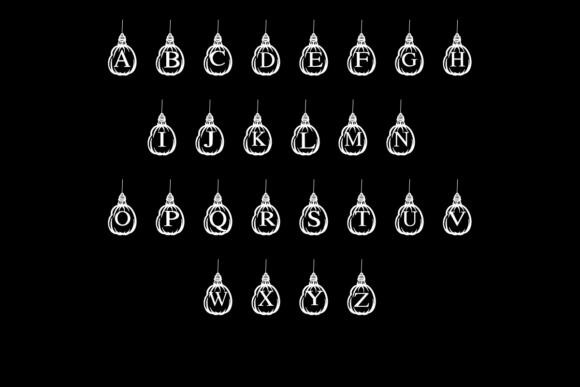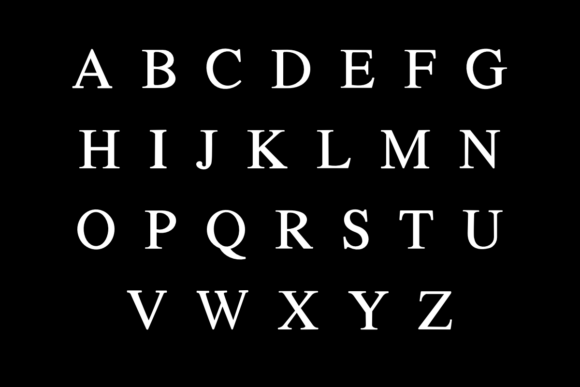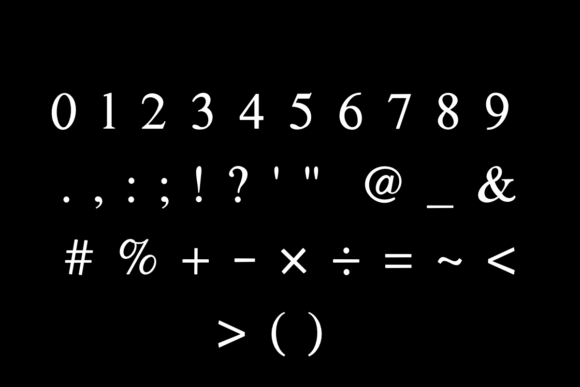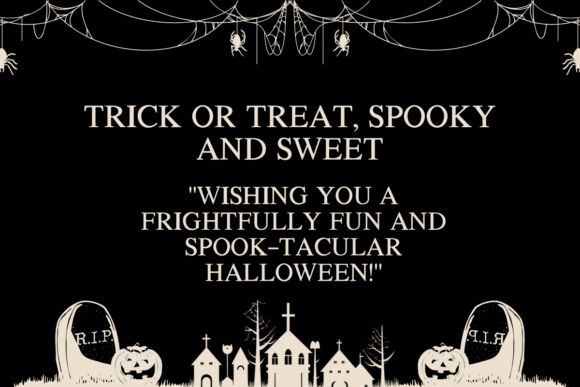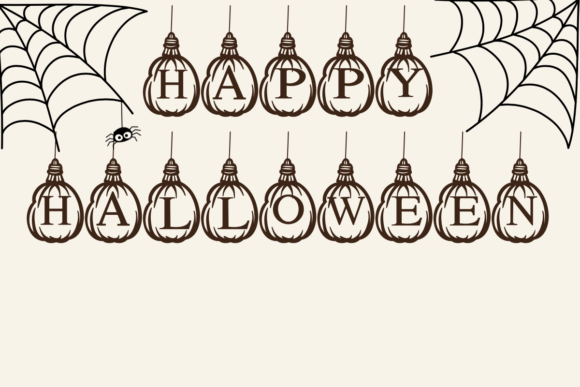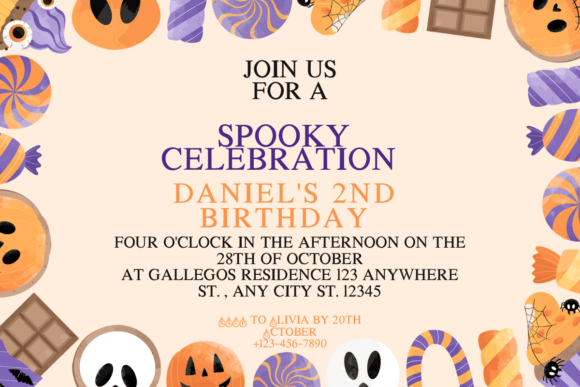
Introduction to Halloween Light Font
As you’re brainstorming ideas for your Halloween-themed project, you stumble upon the perfect font to set the mood: the warm, enchanting glow of a jack-o’-lantern. But, instead of a real pumpkin, you’re drawn to a digital design that captures its essence – the Halloween Light Font. This delightful font is a game-changer for designers seeking to infuse their projects with high-quality, seasonal charm.
With its whimsical feel and free download option, the Halloween Light Font has become a go-to design resource for creatives. Whether you’re designing party banners, treat bag tags, or spooky invitations, this font adds character to your work and brings the essence of Halloween to life. Its transparent background makes it easy to layer with other design elements, giving you endless possibilities for your creative project.
For designers, the Halloween Light Font is a valuable asset, offering a unique and eye-catching way to express their creativity. Its versatility and free download make it an ideal addition to any design toolbox, perfect for elevating your Halloween-themed projects to the next level.
Key Features of Halloween Light Font
- High-quality design: Halloween Light Font offers intricate details and crisp typography for a visually appealing effect.
- Transparent background: The font features a transparent background, allowing for seamless integration with various design elements and backgrounds.
- Resolution-independent: The font is designed to be resolution-independent, ensuring that it looks great on various devices and screen resolutions.
- Perfect for creative projects: Halloween Light Font is ideal for designers working on creative projects, such as greeting cards, posters, and social media graphics.
Honest Review: Halloween Light Font
I recently stumbled upon the Halloween Light Font, and I must say it’s a great addition to any designer’s collection. As a creative project enthusiast, I appreciate high-quality design resources like this one.
- ✨ The transparent background allows for seamless integration with other design elements.
- ✨ The font’s spooky, yet elegant design makes it perfect for Halloween-themed projects.
- ⚠️ The font may not be suitable for corporate or professional projects, as it has a more playful tone.
- ⚠️ The font’s design may be too intricate for some projects, making it difficult to read.
Overall, I’m impressed with the Halloween Light Font. It’s a great design resource for creative projects, especially those with a spooky or Halloween theme. With its high-quality design and free download option, it’s definitely worth adding to your collection.
Halloween Light Font
For a high-quality design, use the Halloween Light Font in combination with other design resources, such as images and shapes. You can also experiment with different font sizes and colors to create a unique and creative project.
The Halloween Light Font is perfect for creating spooky and fun designs for Halloween-themed projects, such as invitations, posters, and social media graphics. You can also use it for other creative projects, such as party decorations and gift tags.